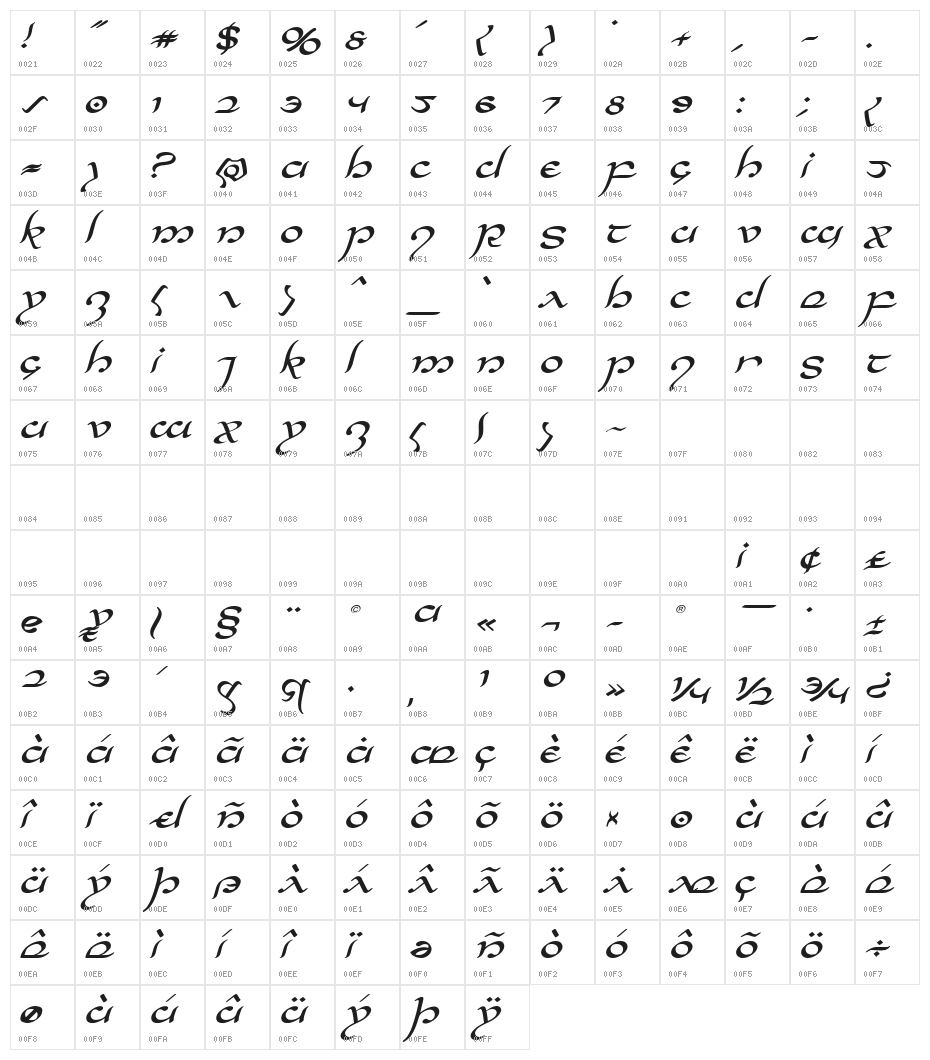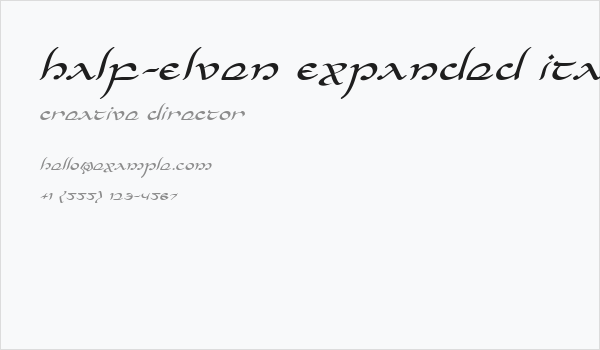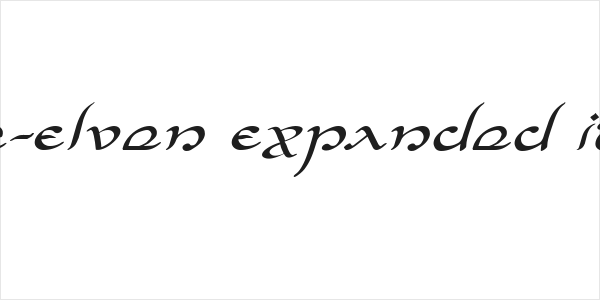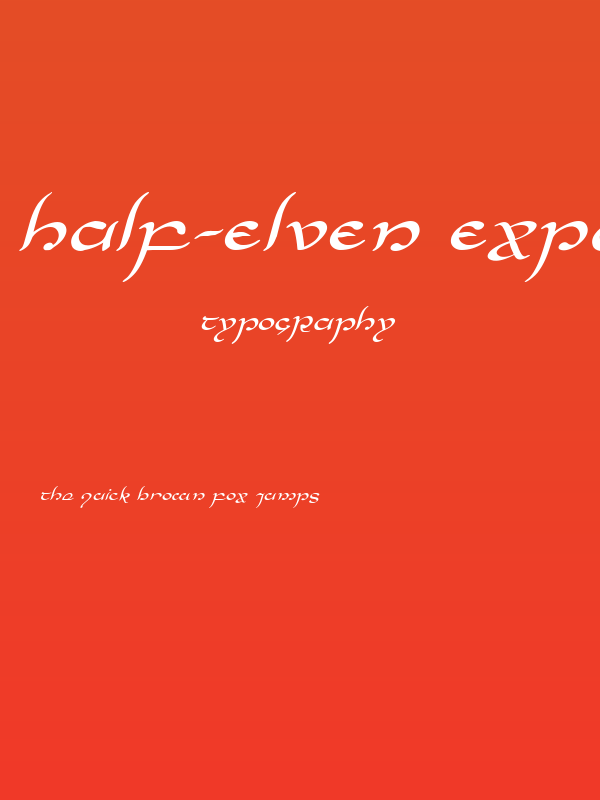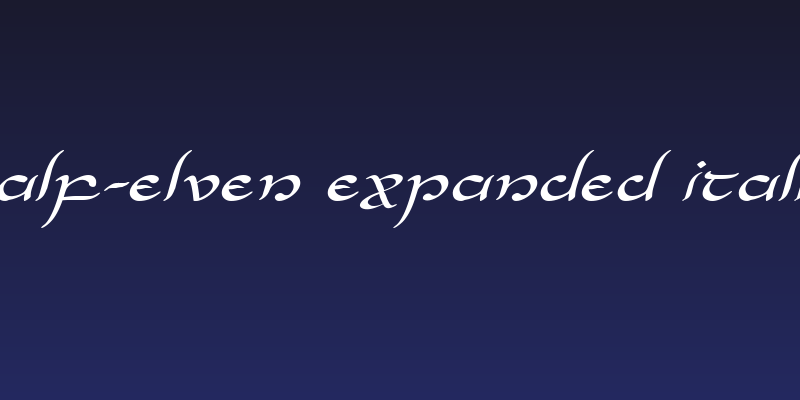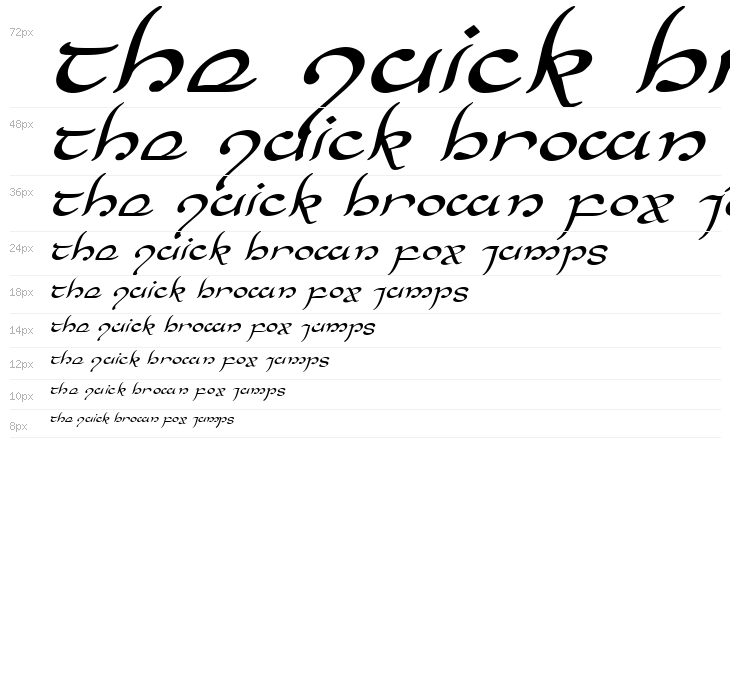
Half-Elven Expanded Italic Font
Half-Elven Expanded Italic Description
This font features an elegant and flowing design, reminiscent of calligraphic styles with a touch of fantasy. The characters are elongated and slightly slanted, giving them a dynamic and graceful appearance. The strokes are smooth and fluid, with varying thickness that adds a sense of movement and sophistication. The uppercase and lowercase letters maintain a consistent style, while the numerals and special characters complement the overall aesthetic. This font is ideal for projects that require a touch of elegance and fantasy, such as book covers, invitations, or themed branding.
| Use Case | Headlines, Logos, Decorative text |
| Proposed Projects | Ideal for book covers, invitations, fantasy-themed branding, and decorative purposes. |